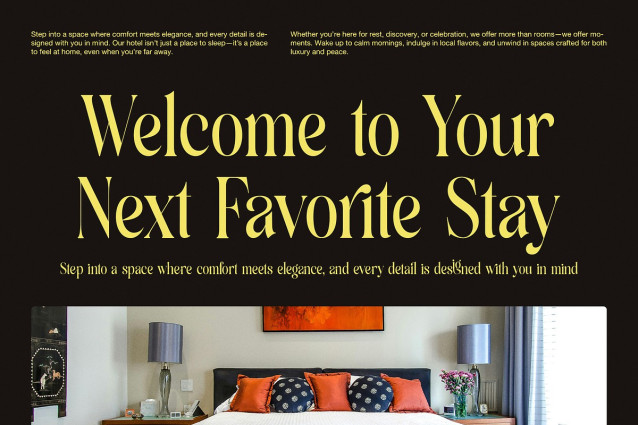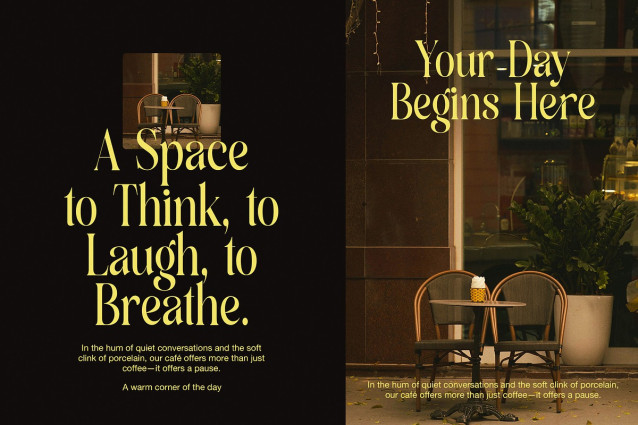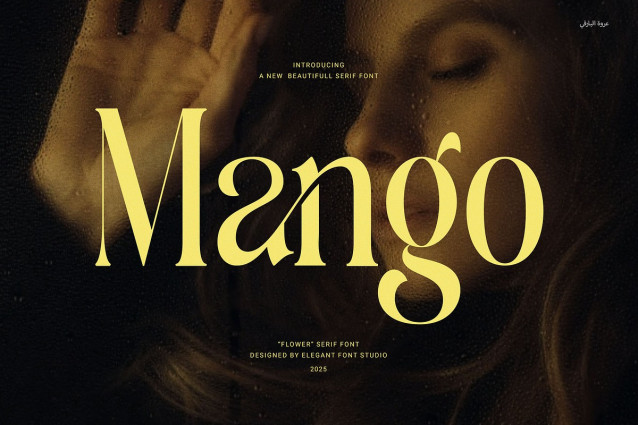
Mango Font
Mango Font – Elegant Serif Font is a sleek and modern serif designed to bring elegance and clarity to all your branding projects. Featuring proportional letterforms and functional ligatures, this font adds a refined, polished touch to any design. It fits perfectly with logos, websites, magazines, layouts, packaging, and advertisements, helping your brand stand out beautifully.
This versatile font suits many industries, including boutiques, food, fashion, and corporate businesses. Mango balances style with readability, ensuring your message remains clear in both digital and print formats. Its smooth ligatures and well-crafted shapes enhance text flow, creating an attractive and professional appearance.